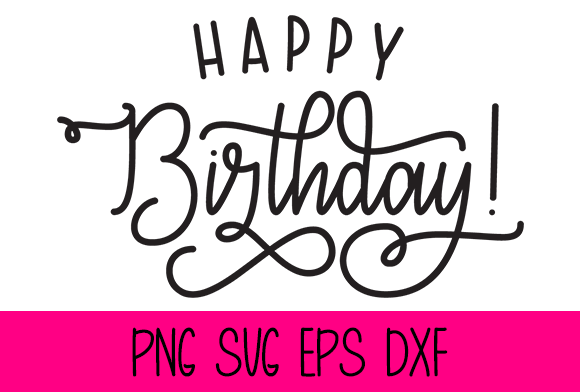
Happy Birthday – Graphic
Happy Birthday Graphic by Misti's Fonts
Happy Birthday Graphic by Misti’s Fonts
This lettering is inspired by my fonts Congrats Script and Hey Pretty Girl!